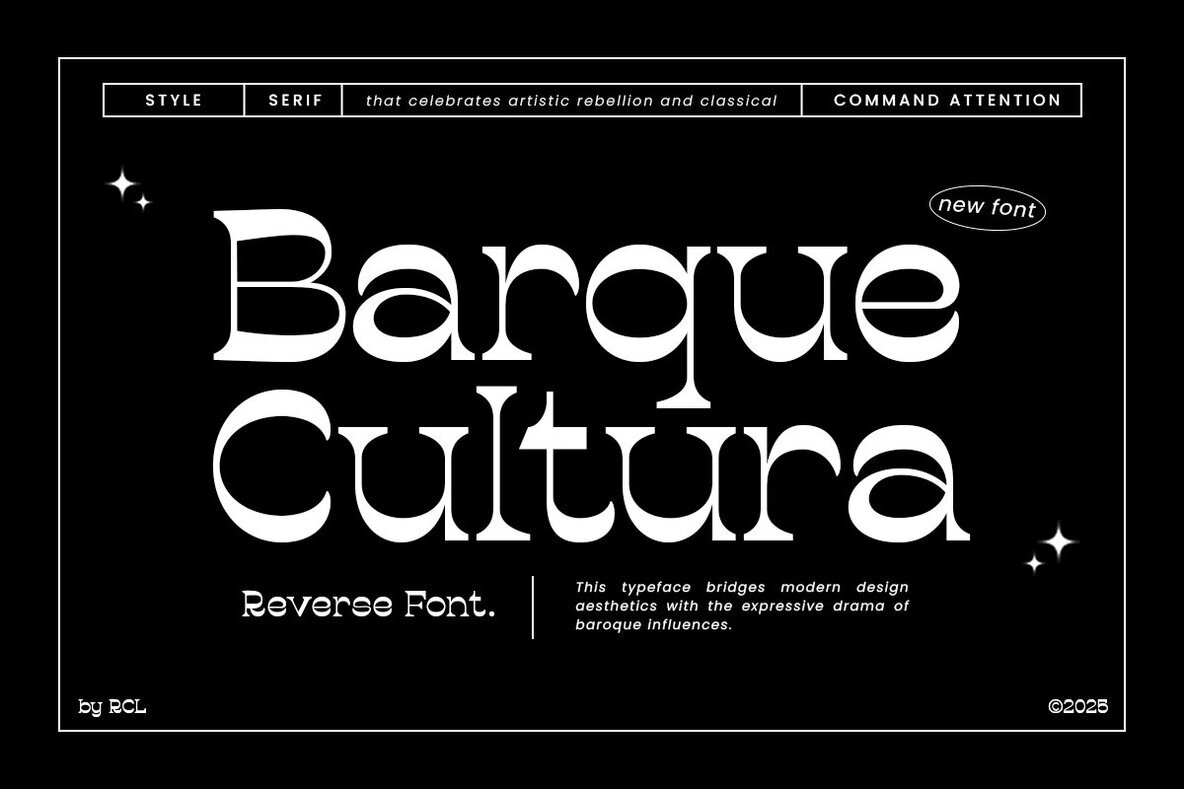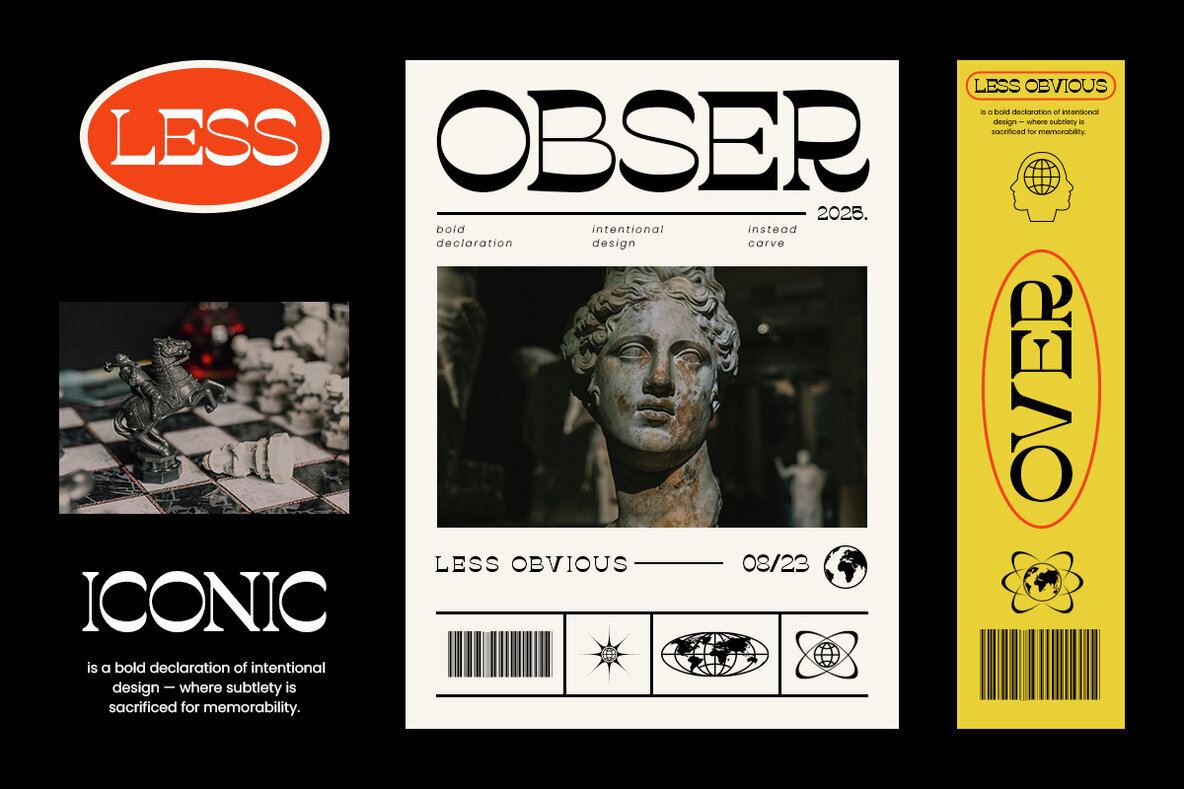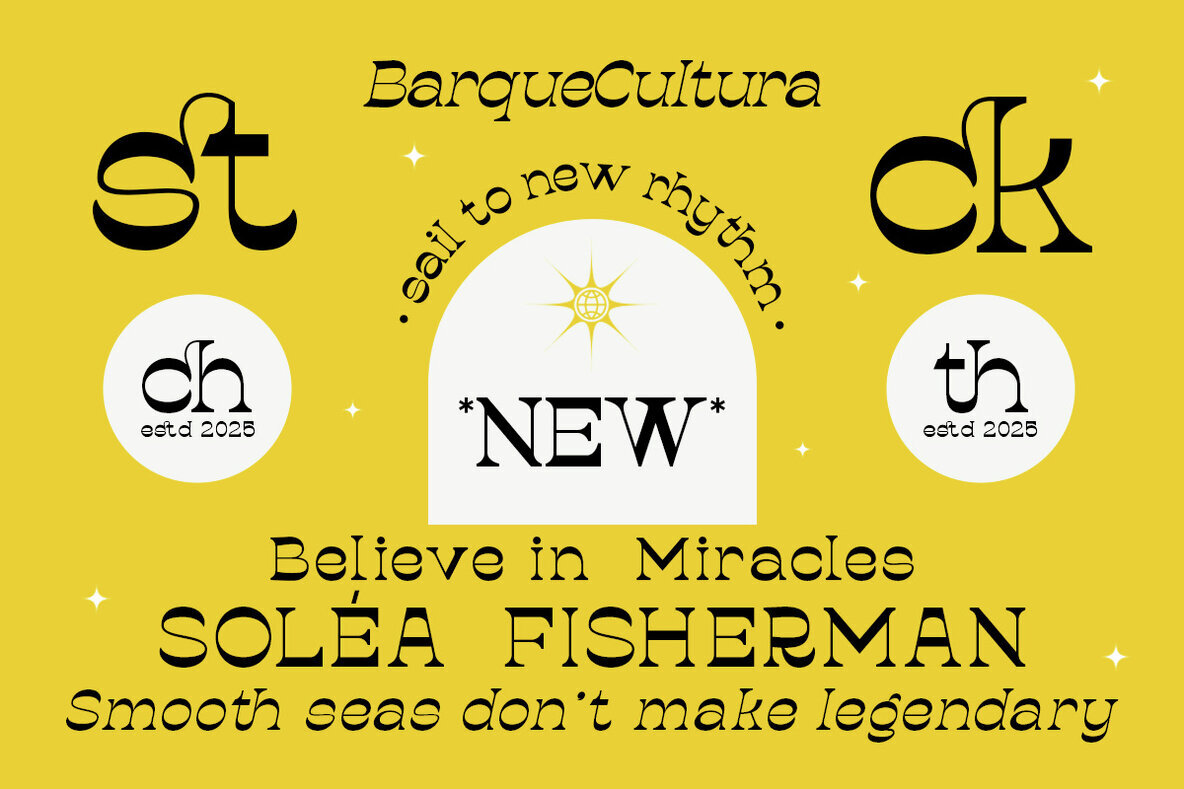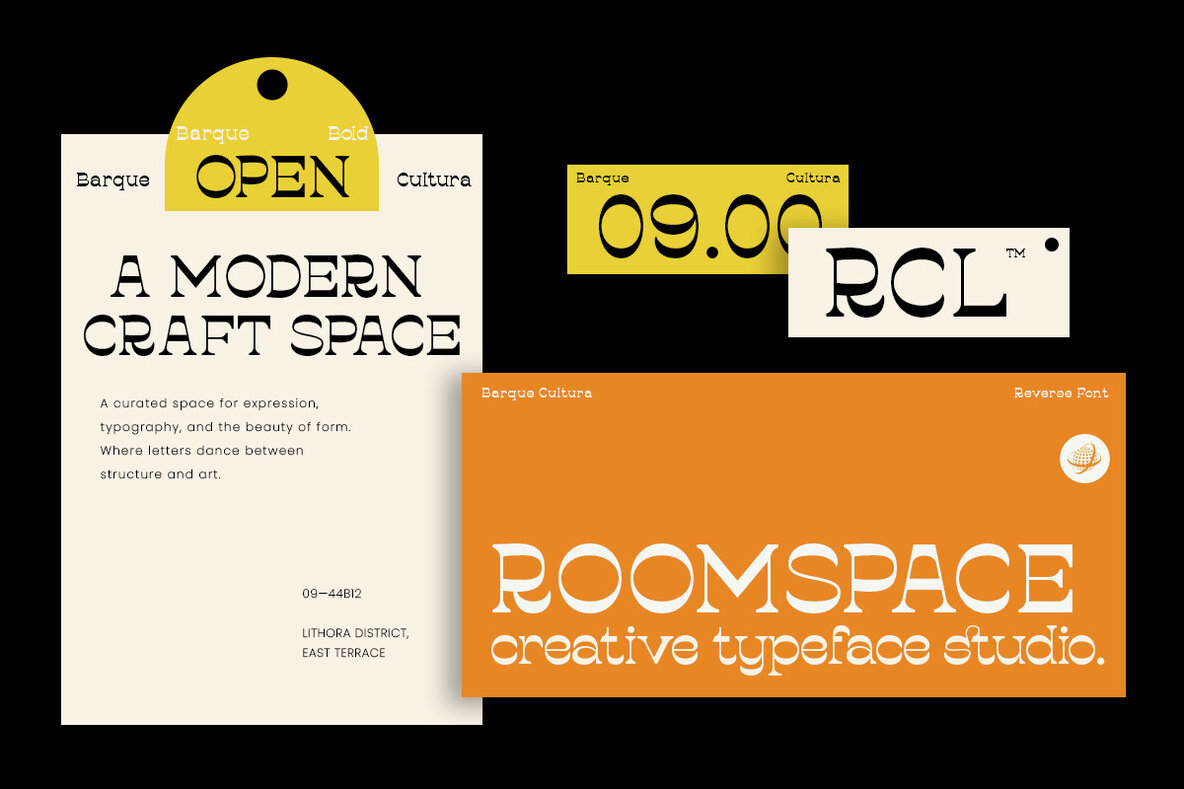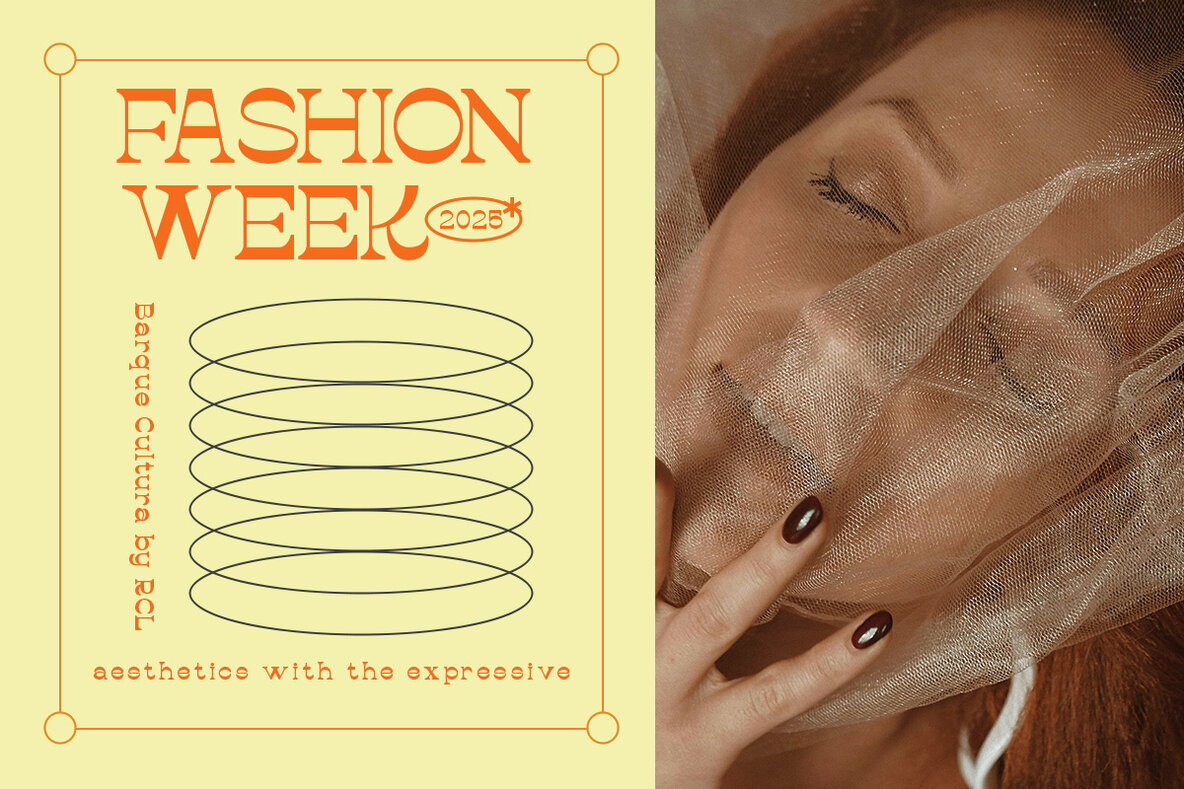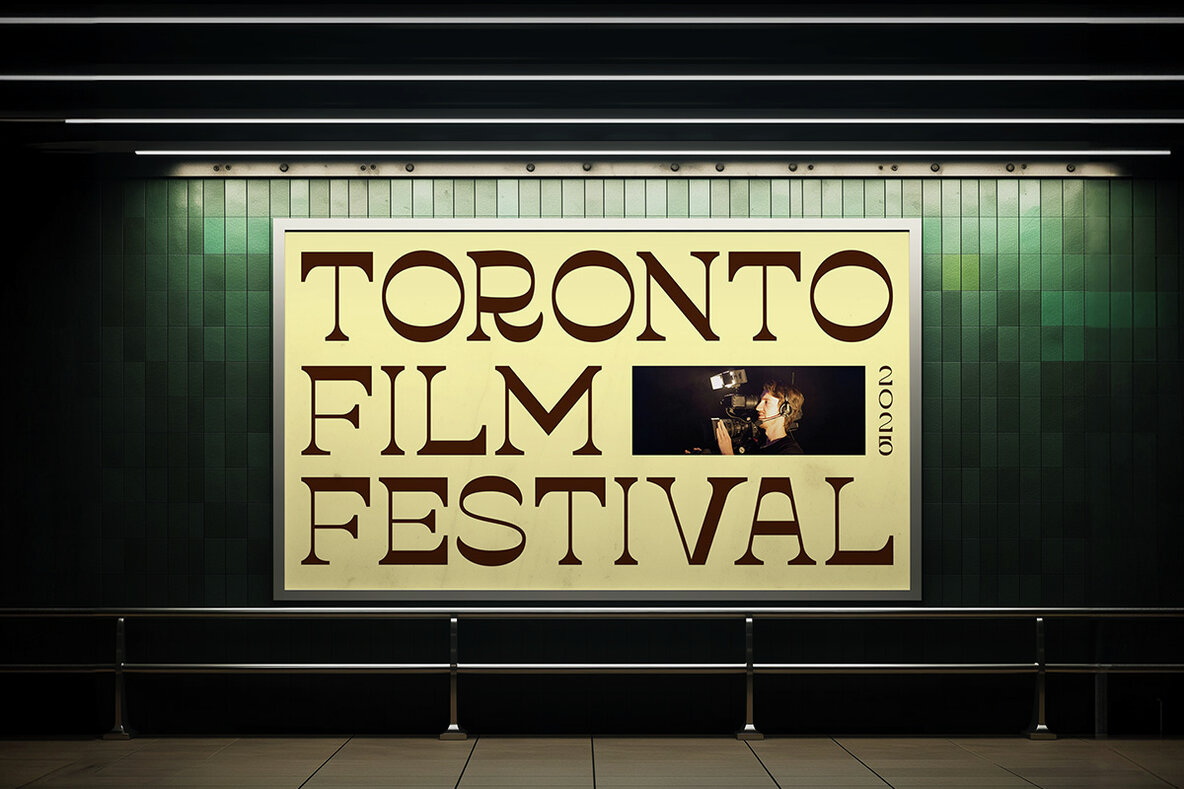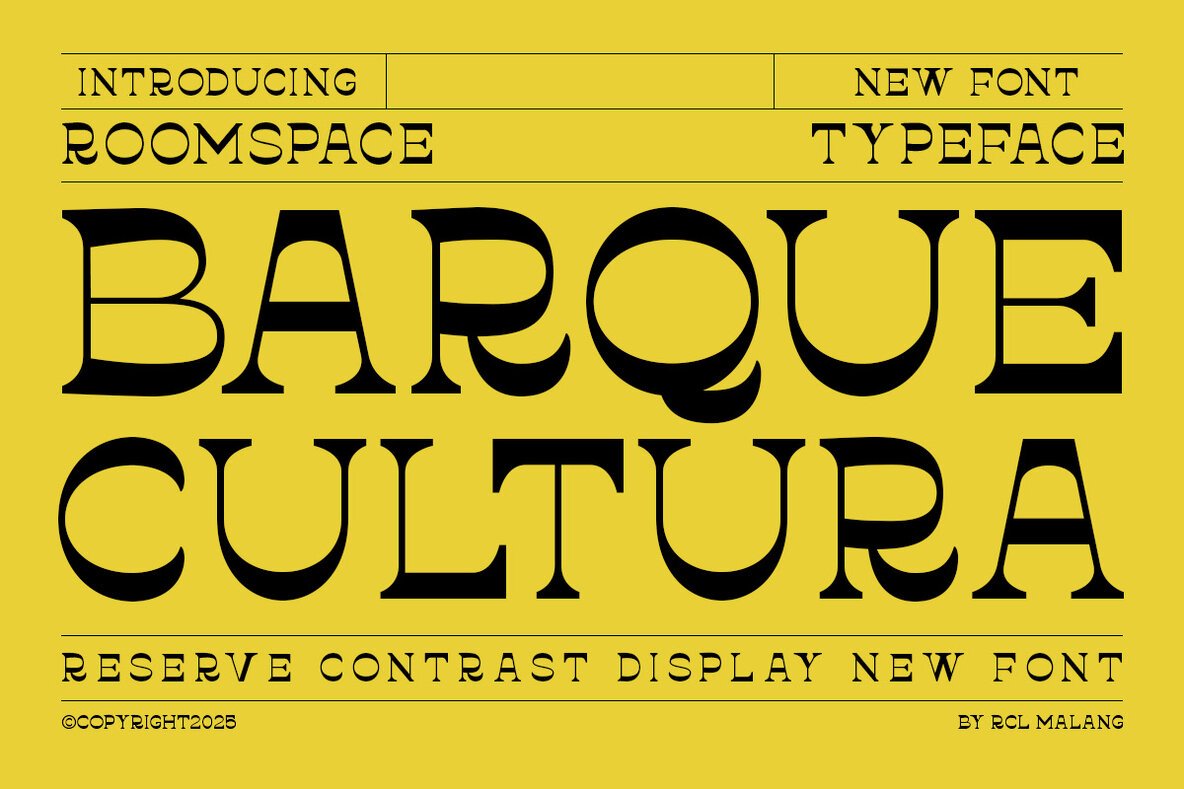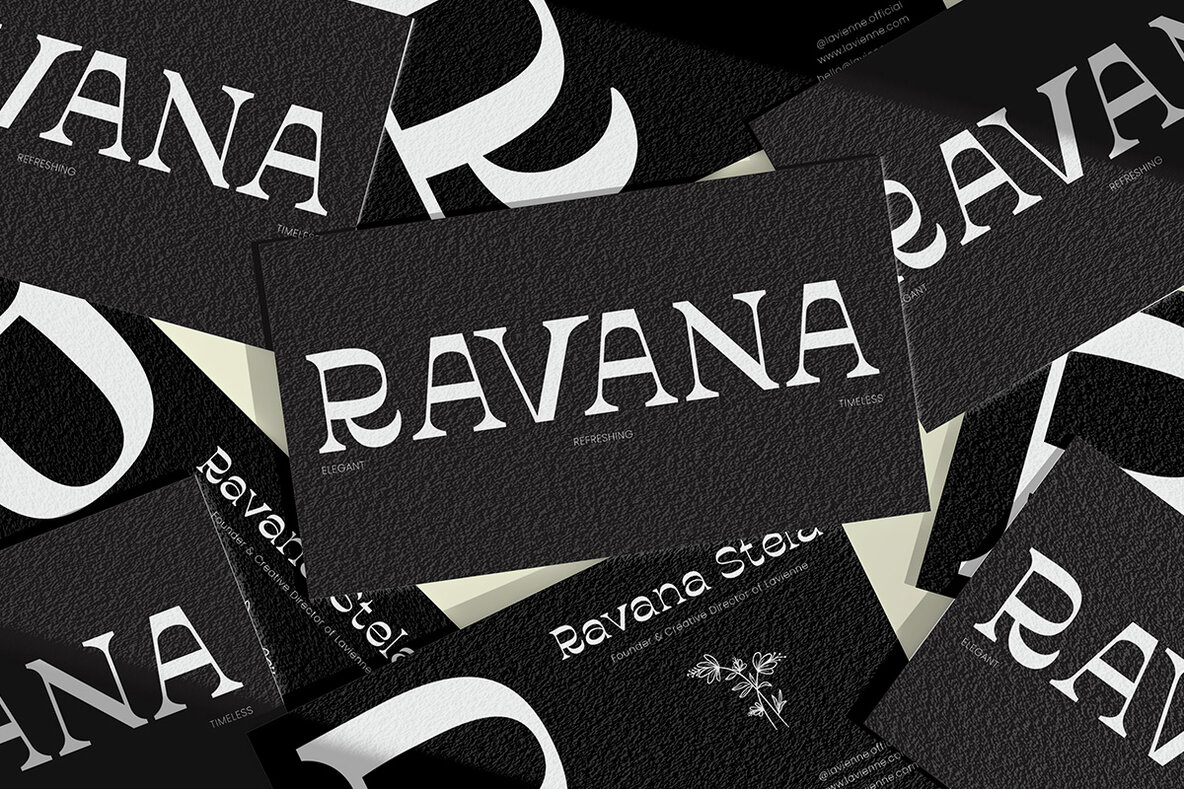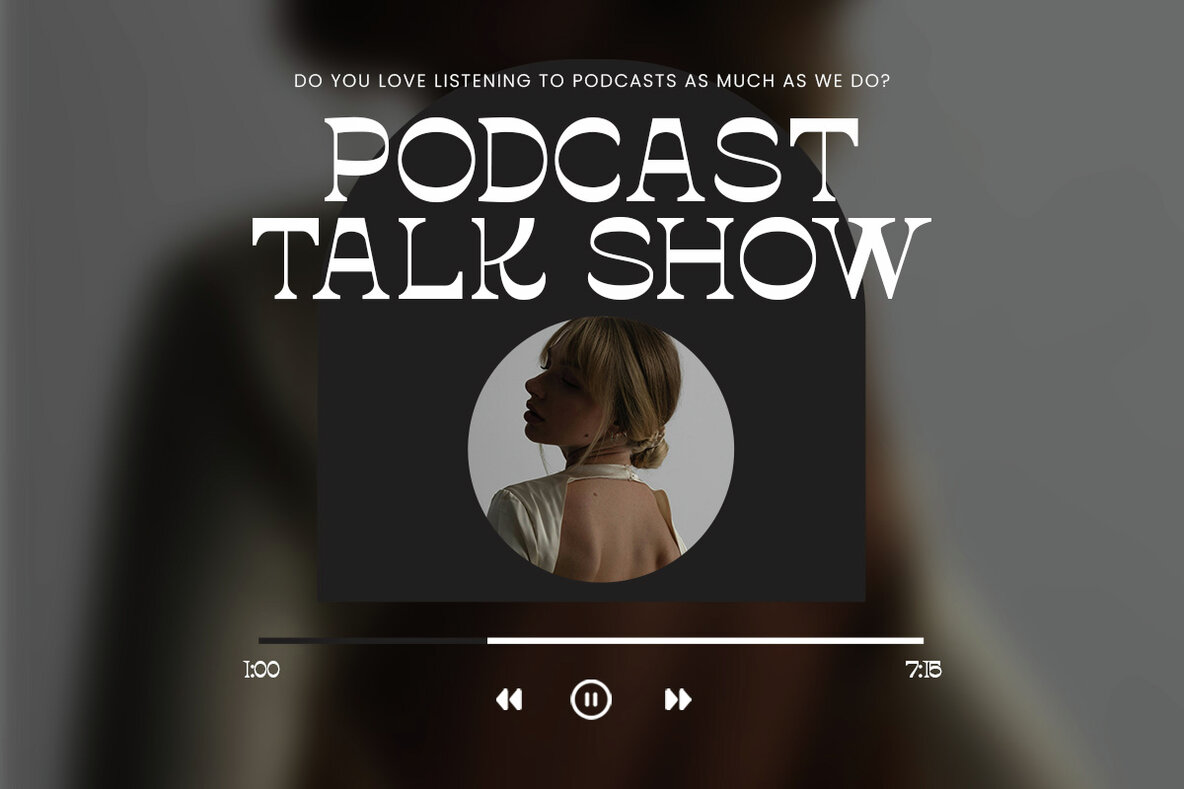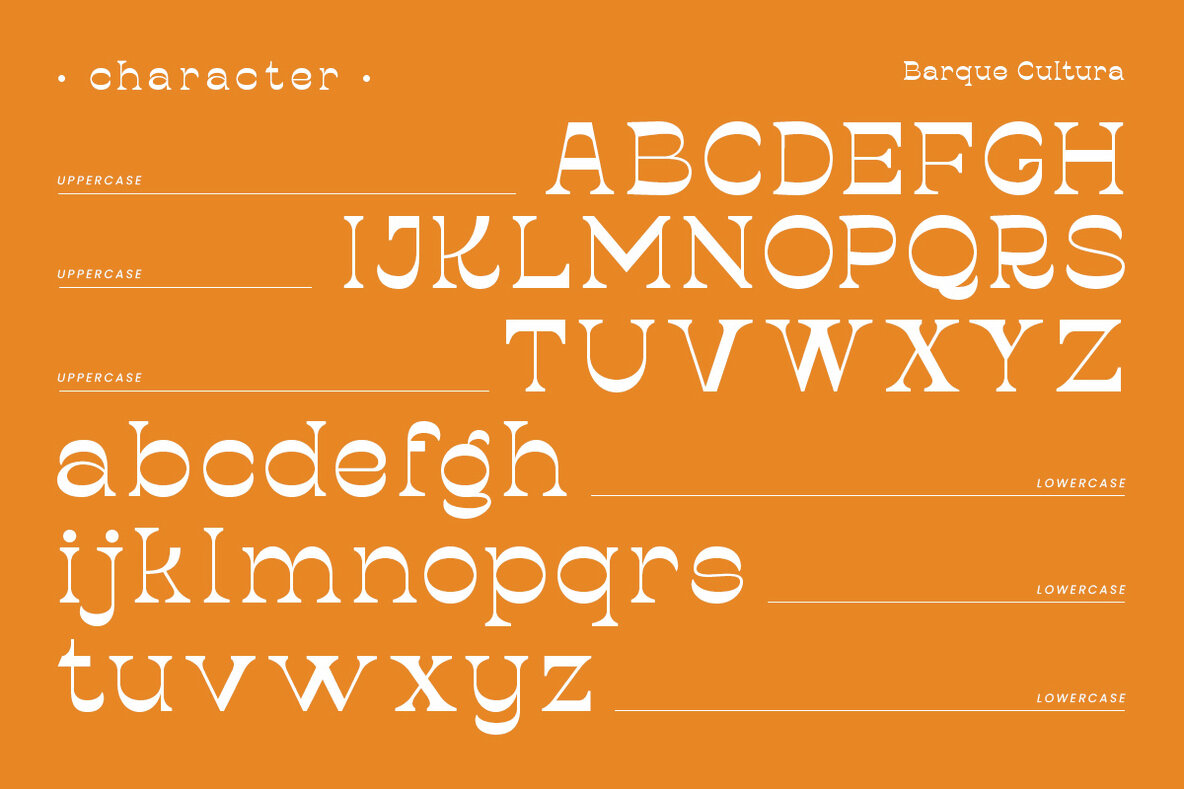
Barque Cultura Font
Baroque-inspired elegance meets the cutting edge in Barque Cultura, a bold modern serif font. Its high contrast strokes and sculptural curves create a striking visual impact, ideal for editorial layouts, fashion branding, cultural posters, and more. This reverse serif typeface offers a unique blend of classical richness and modern creativity, ensuring your designs stand out with sophistication and flair. Every glyph in Barque Cultura is meticulously curated to strike a balance between the experimental and the sophisticated, delivering timeless elegance with a rebellious edge. Whether you're aiming for drama or beauty, this font imbues your projects with both. Barque Cultura offers your designs a typeface as expressive and unforgettable as your vision.Barque Cultura: A Fusion of Baroque Elegance and Modern Expressionism